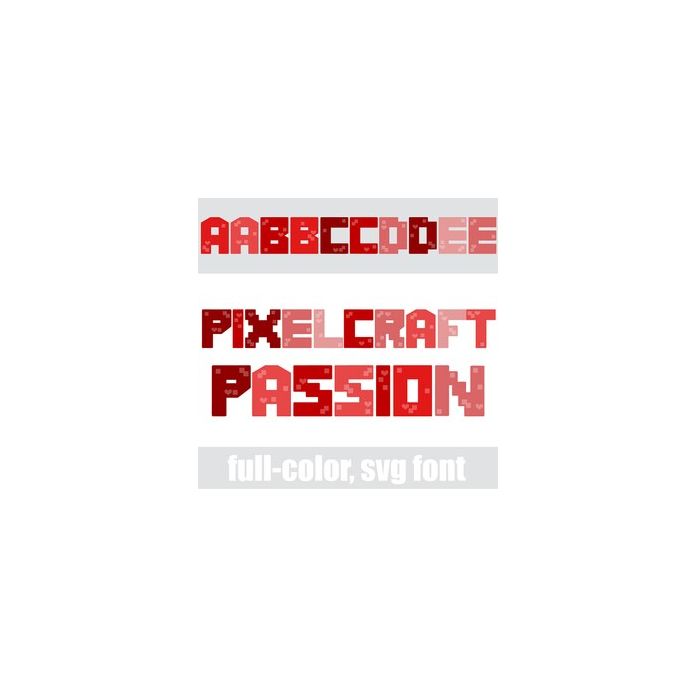
This full-color font is a pixelated font with hearts and sports a valentine color palette. There is an alt case w/ additional colors you can access through your system or Silhouette's glyph map.